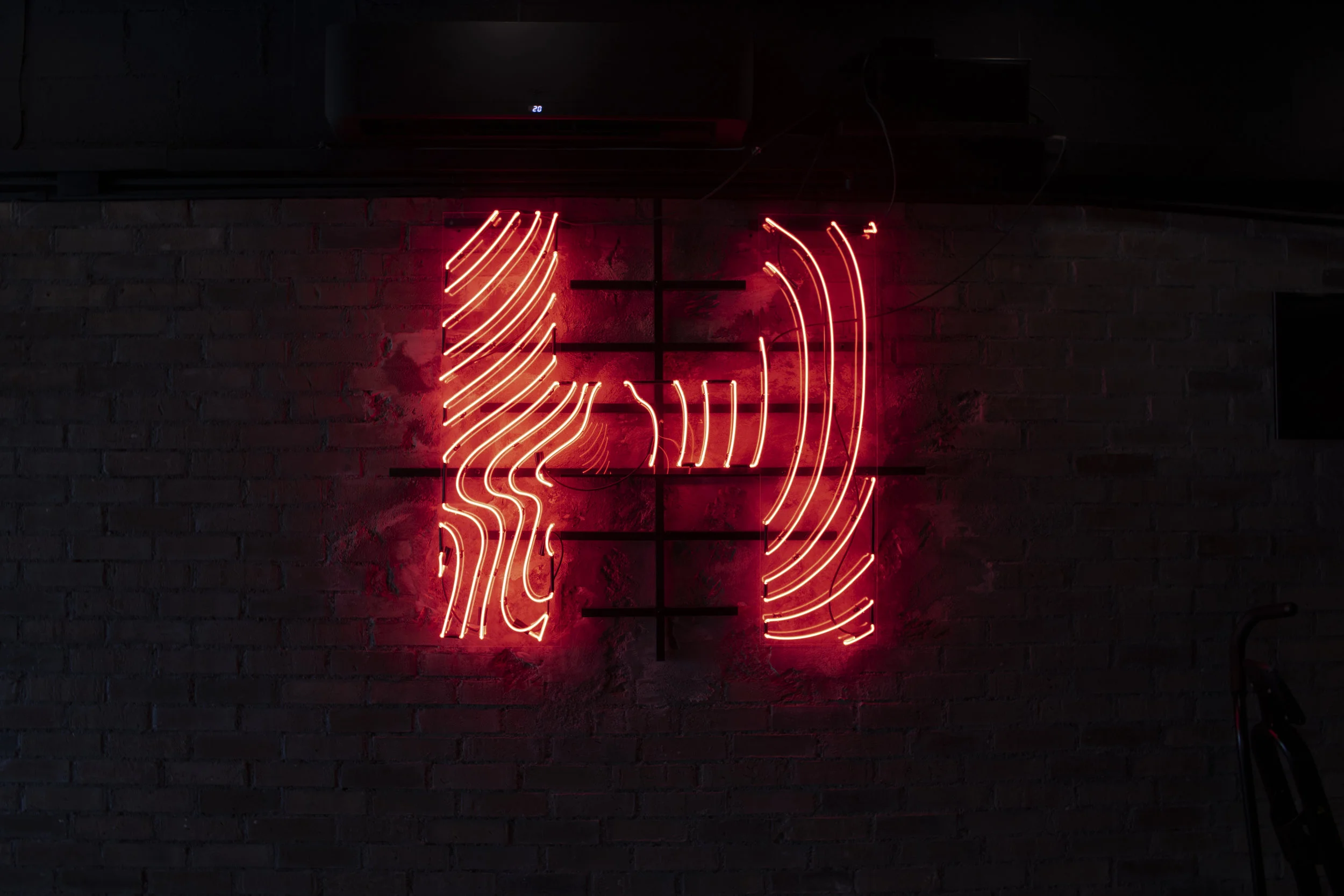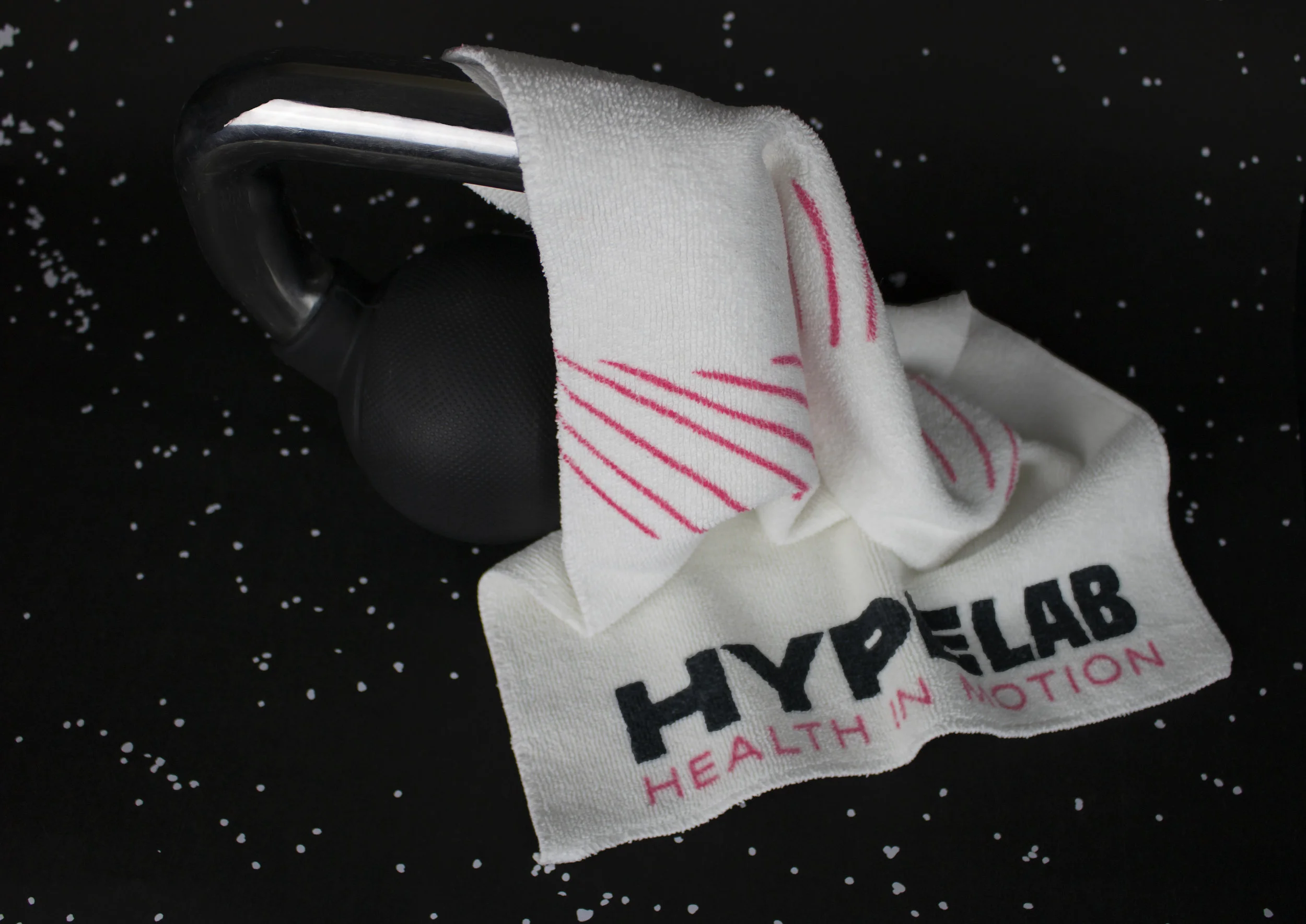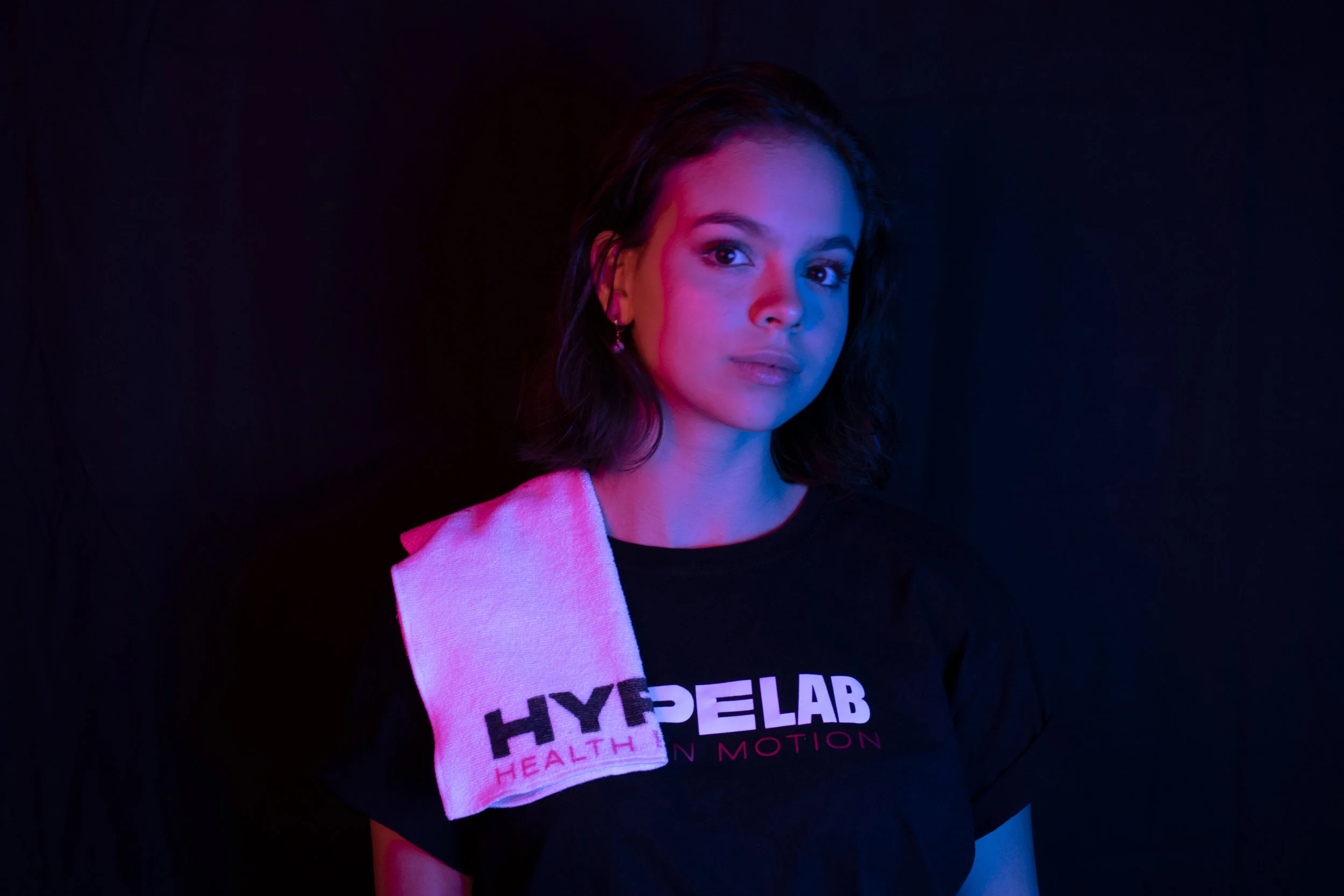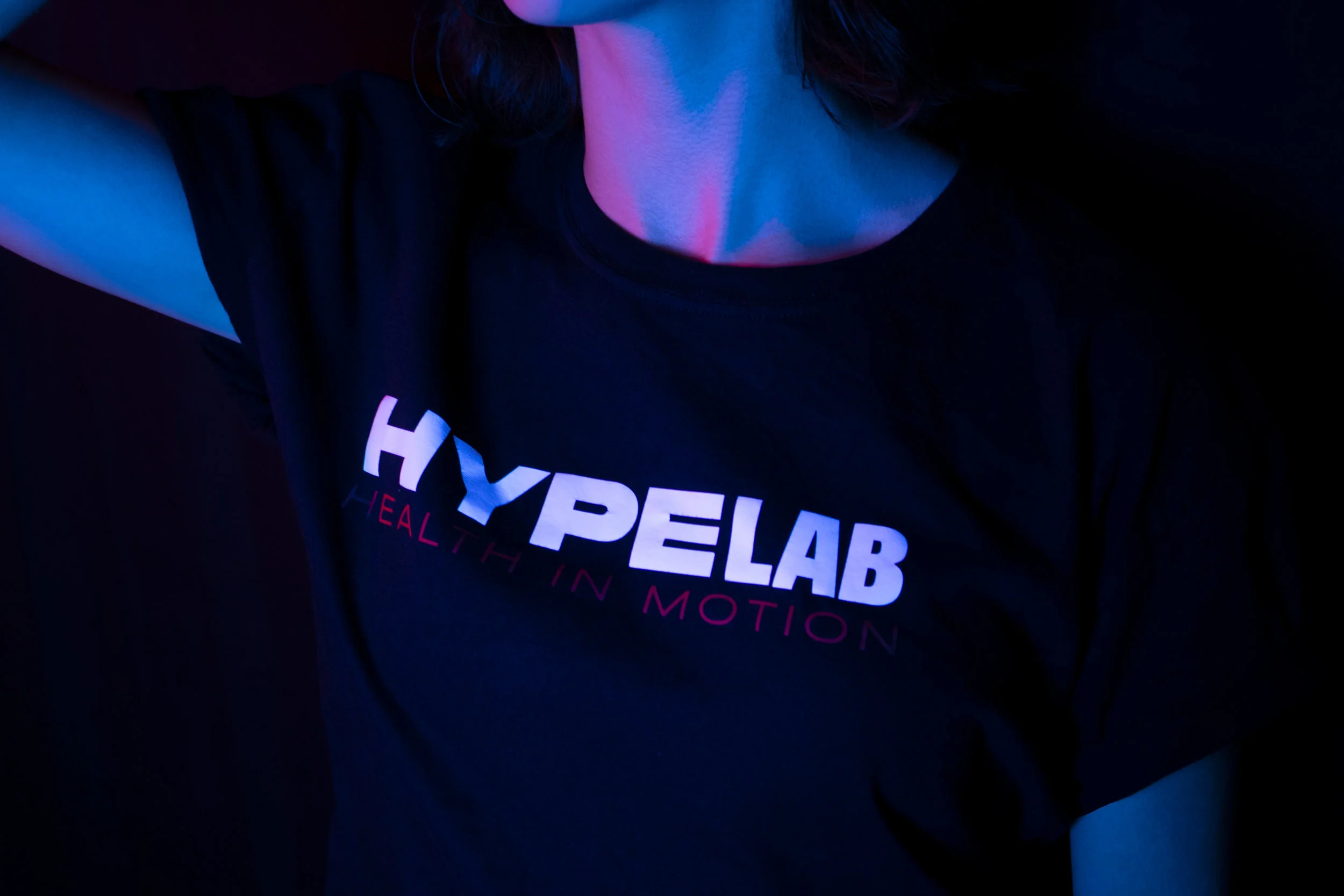
HypeLab is a health center that offers personal training, nutrition consulting and lesion prevention.
NAMING
The name evolves from the boldness and dares those who are in constant movement. It inspires its users to become a better version of themselves by sparking motivation to go further.
The H monogram comes from the pattern used throughout the brand. This graphic represents muscle tissue in a way that evokes an organic element and contrasts it against very typographical, technical brand elements. The pattern expresses action, motivation and tenacity. By accompanying it with vibran neon colors, it transforms the space into an energetic enviroment.